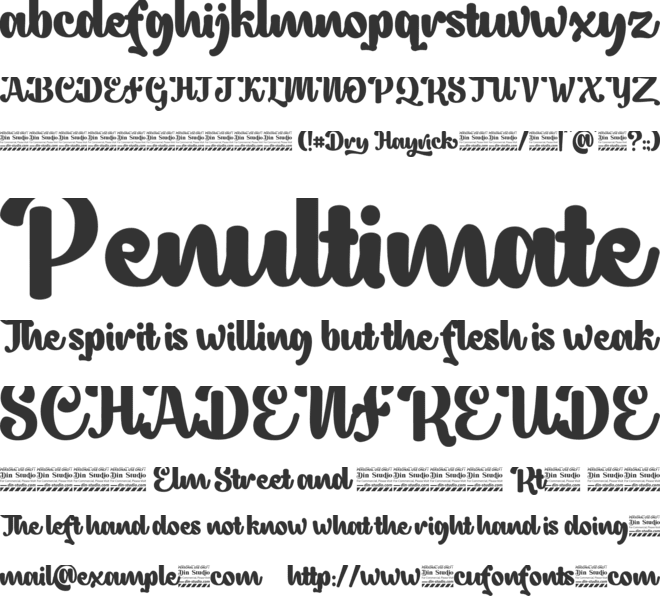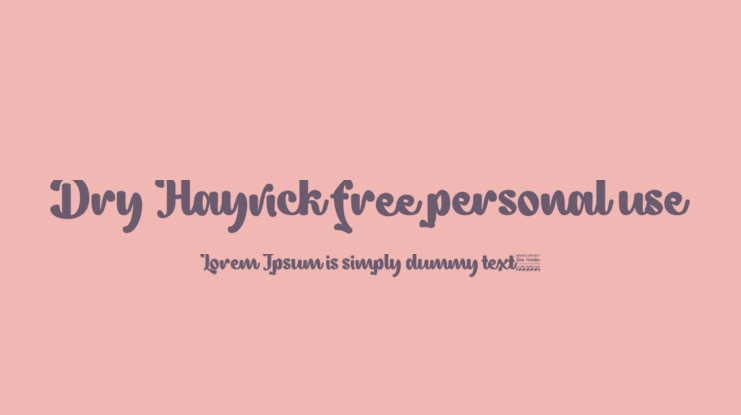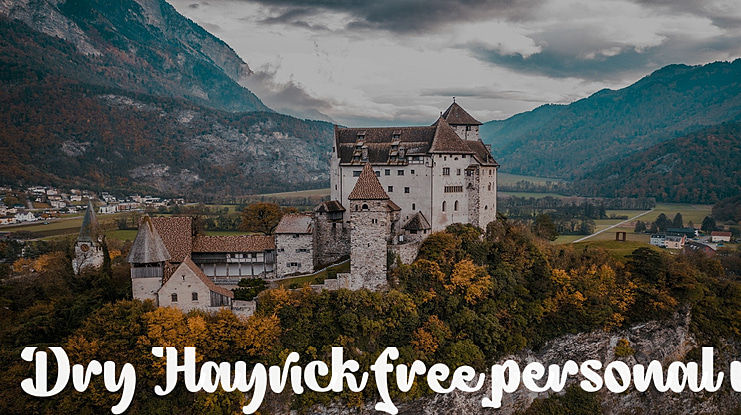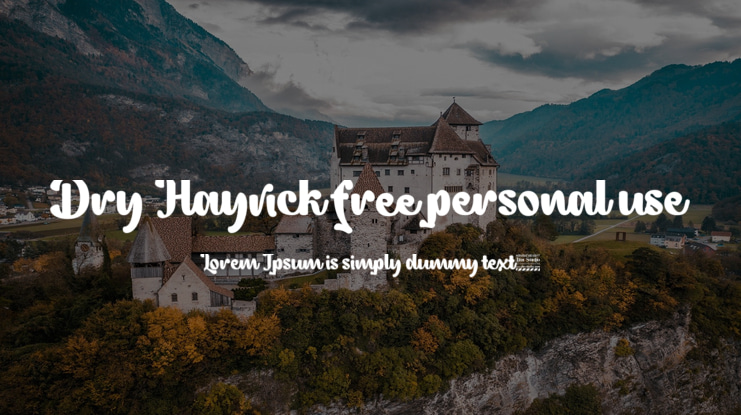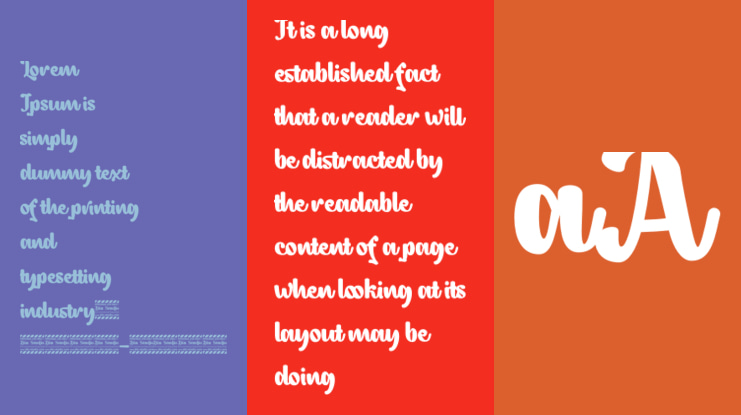
Dry Hayrick free personal use Font
Dry Hayrick is a display font that was fully thought out to easily meld inside your designs. An excellent
choice to add the right amount of playfulness. This custom-made font was specifically designed to fit
whatever you need! The best choice for your logo, book cover, poster, t-shirt, branding, and advertisement needs.